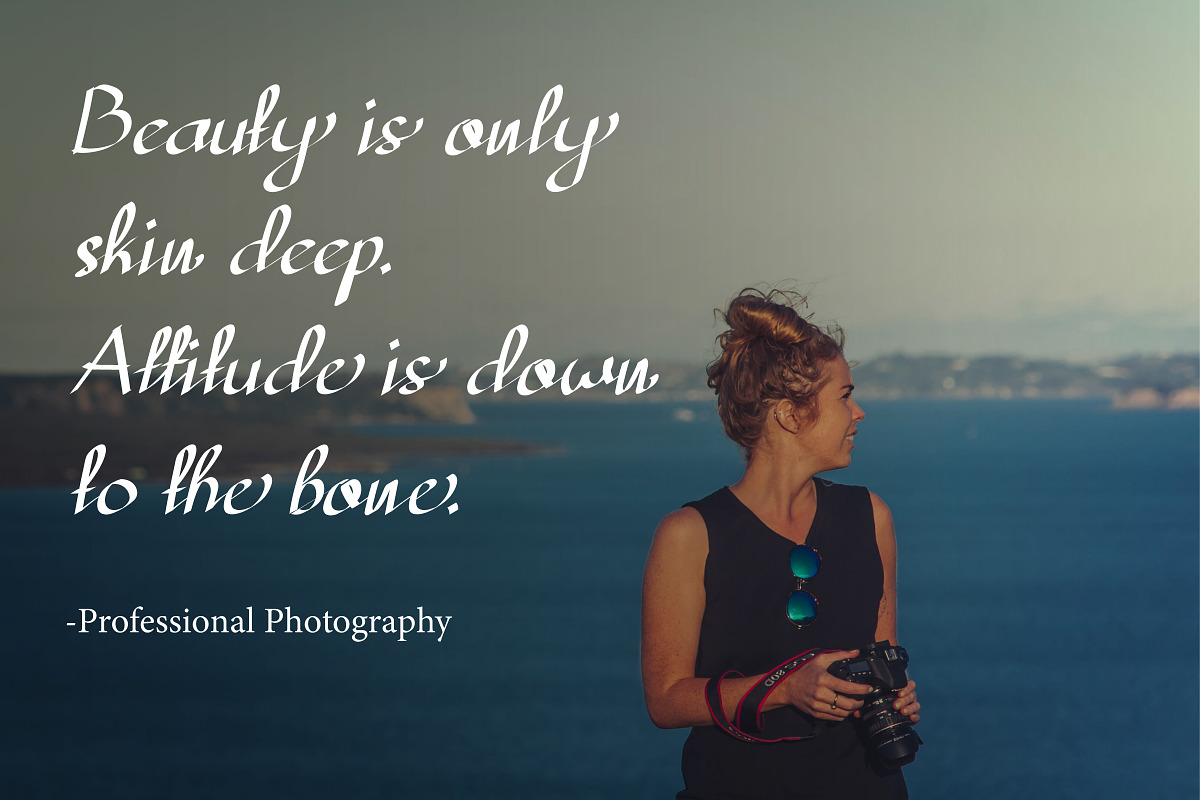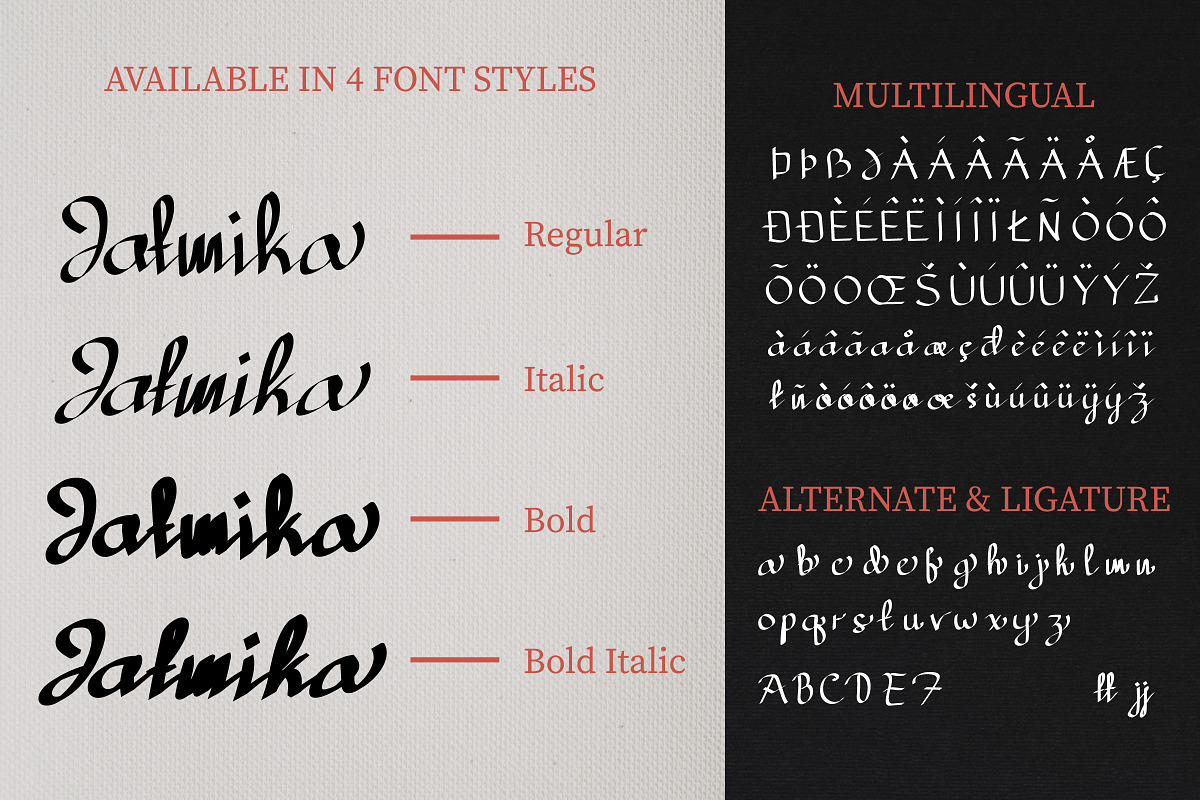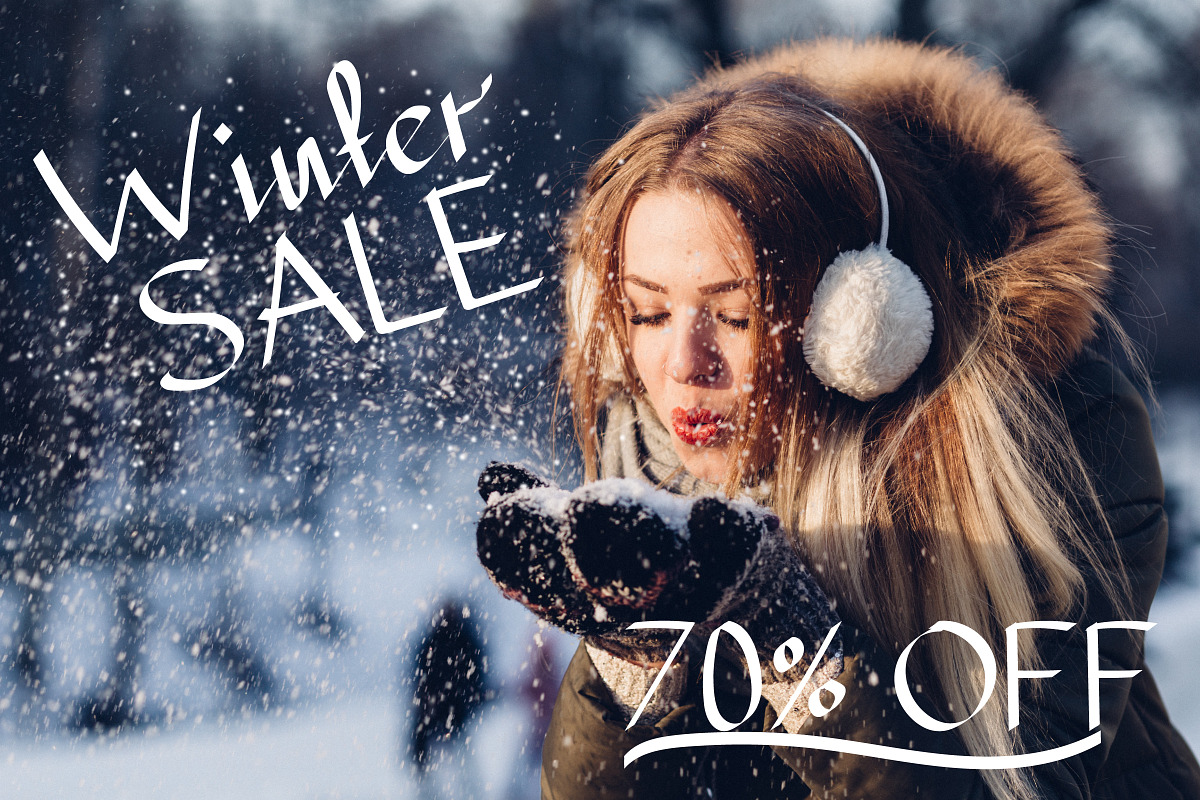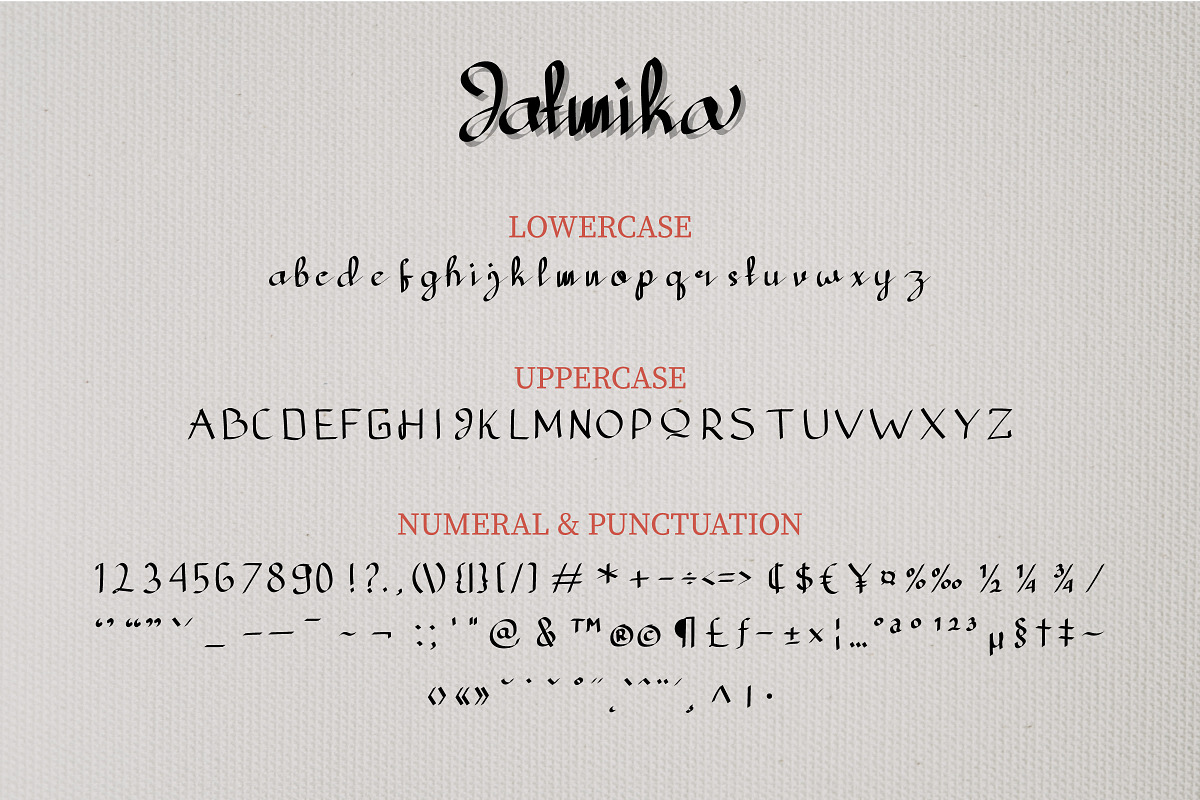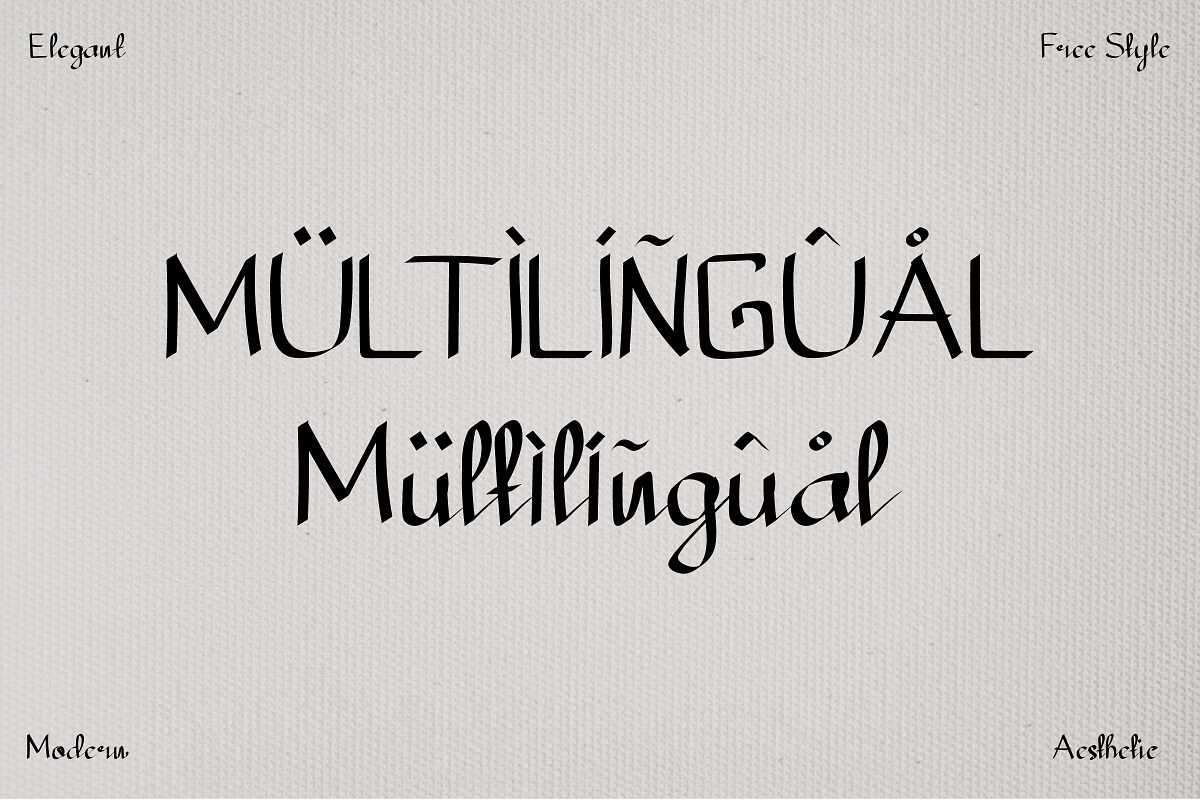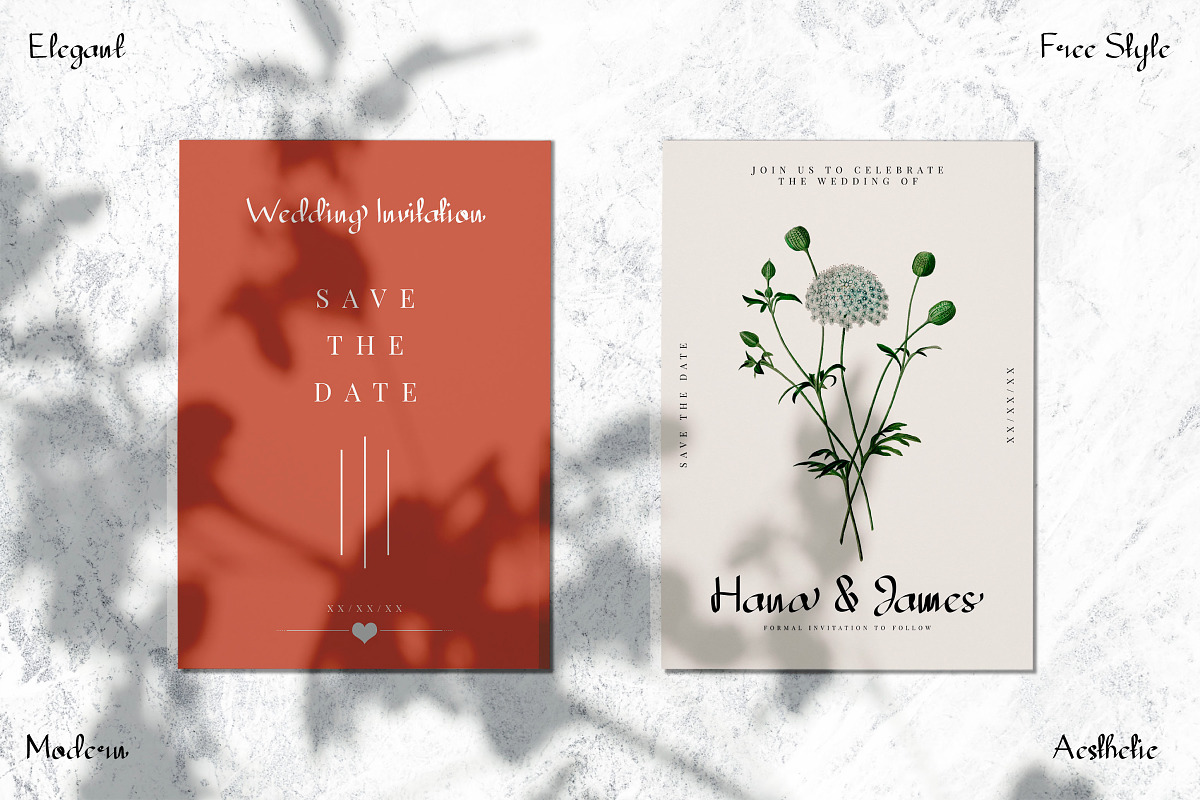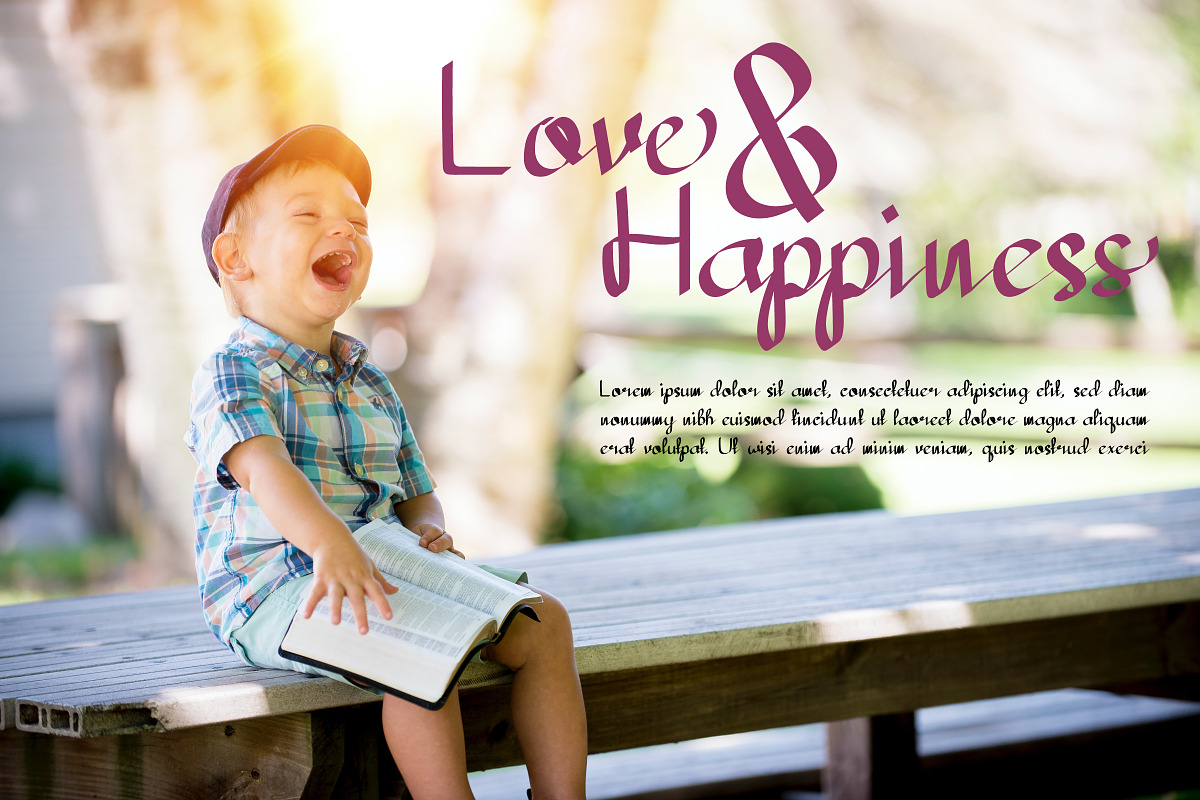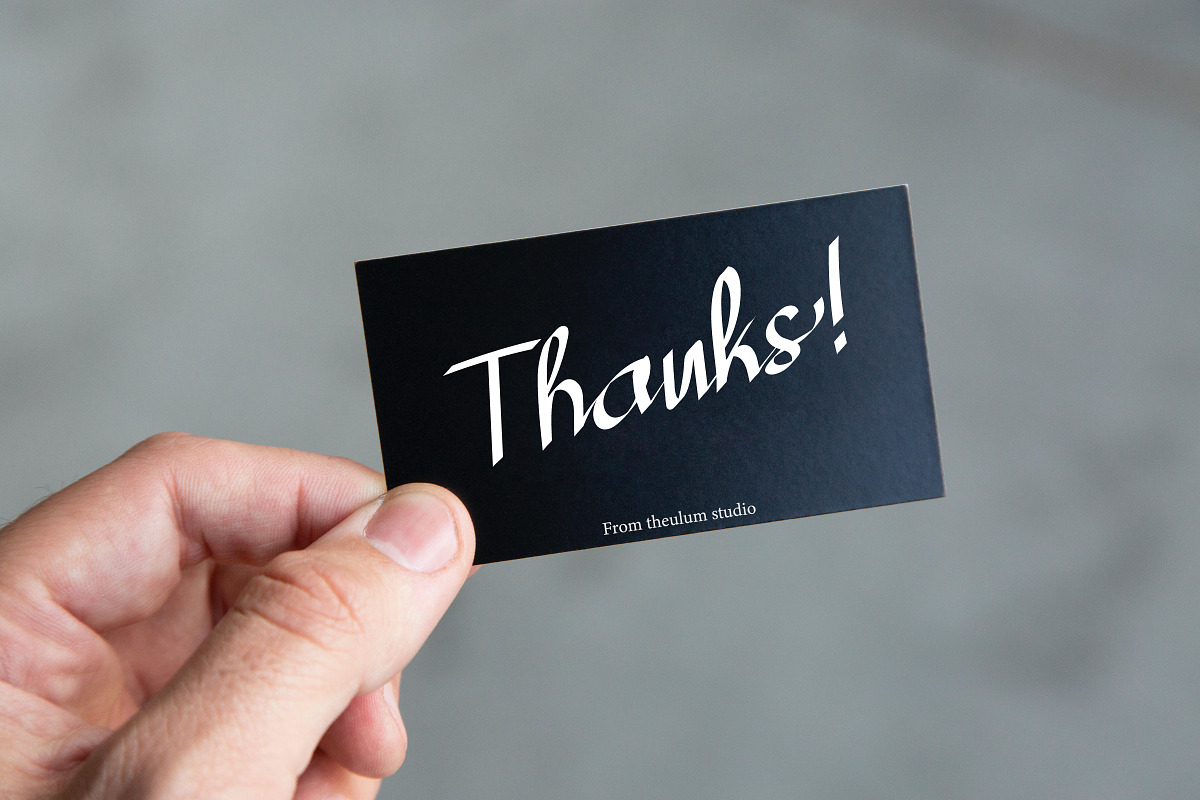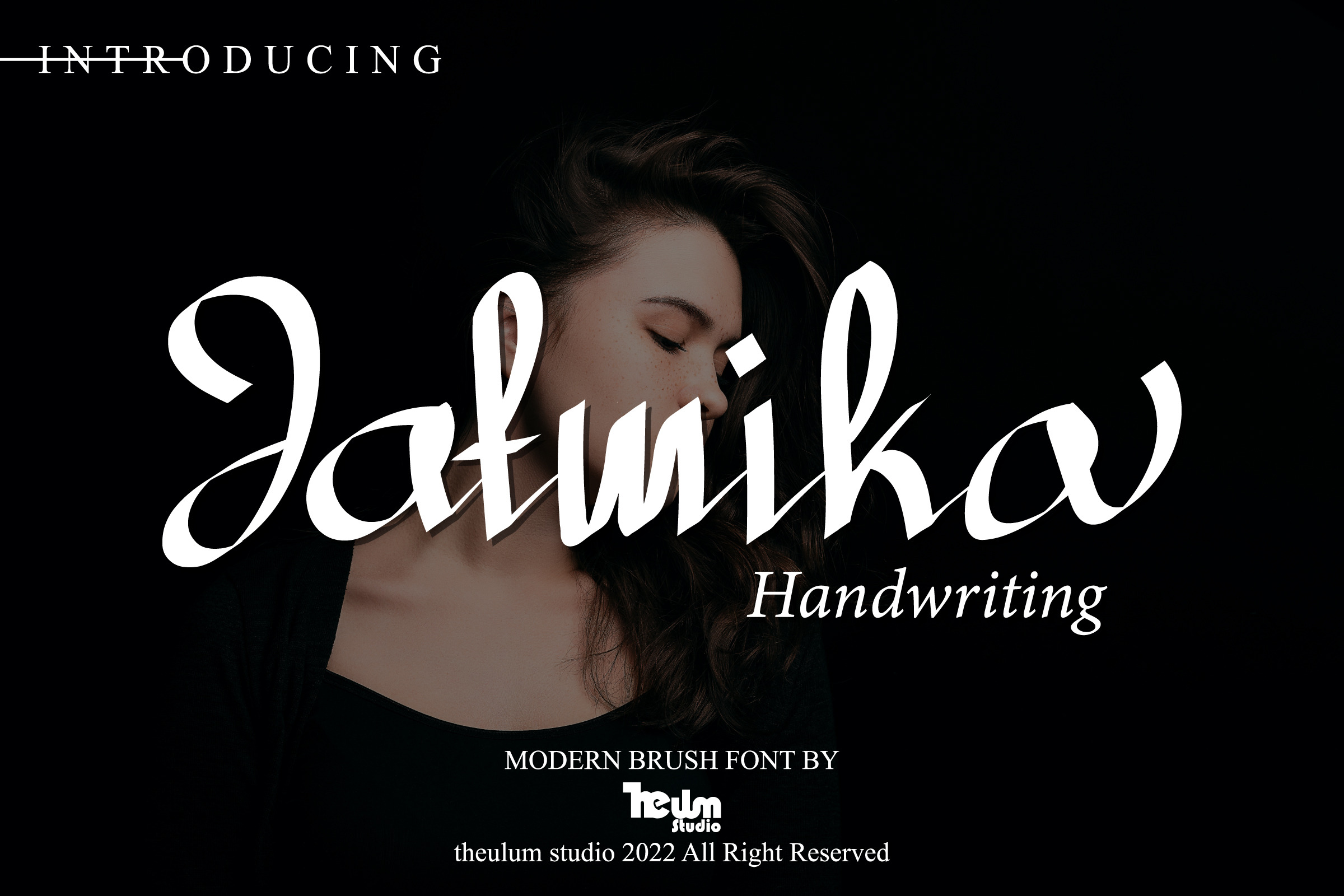
Jatmika - Lovely Handwriting Font
Jatmika comes from Bahasa Indonesia which means always be polite. This font inspired by the good attitude from Indonesian people. They are friendly and kind even though they consist of various tribes and ethnicities. That is why this font very free in style and also has an aesthetic element.
Jatmika would perfect for photography, watermark, social media posts, advertisements, logos, branding, invitation, product designs, label, stationery, wedding designs, product packaging, special events or anything that need handwriting taste.
- Ton of glyphs (include Uppercase, Lowercase, Numerals & Punctuations, and available in Multilingual) Works on PC & Mac
- 4 font styles (Regular, Italic, Bold & Bold Italic)
- Ending Swashes